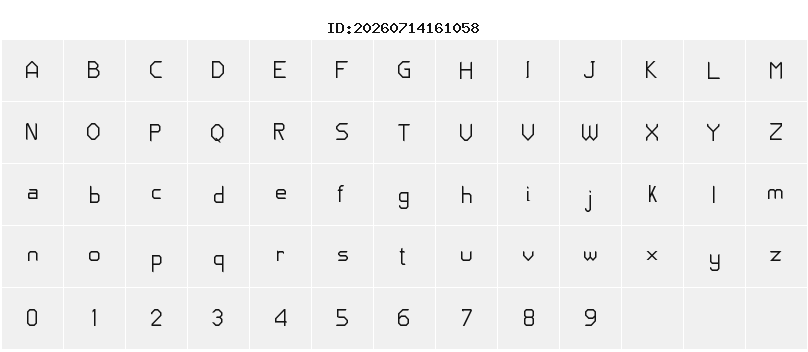
• Font Name: JD Neos
• Full Font Name: JD Neos Regular
• Designer: Jecko Development
• Description: ‚ÄúJD Neos‚Äù was built with FontStruct
About JD Neos.ttf
JD Neos.ttf is a modern, elegant sans-serif font designed for ultimate readability and visual harmony. Perfect for branding, headlines, web design, and print materials.